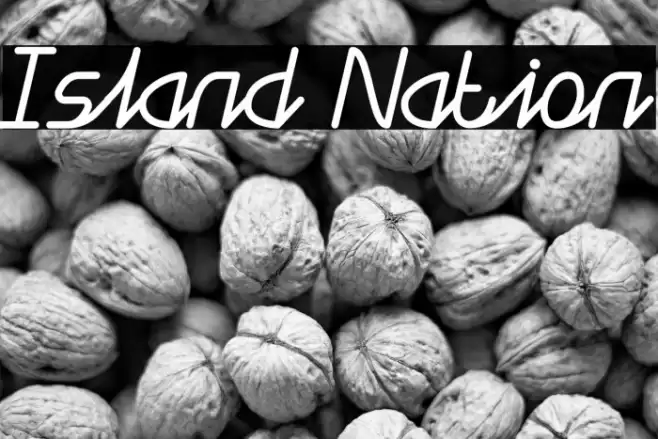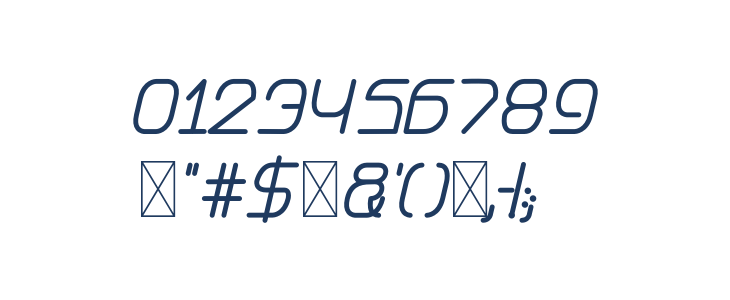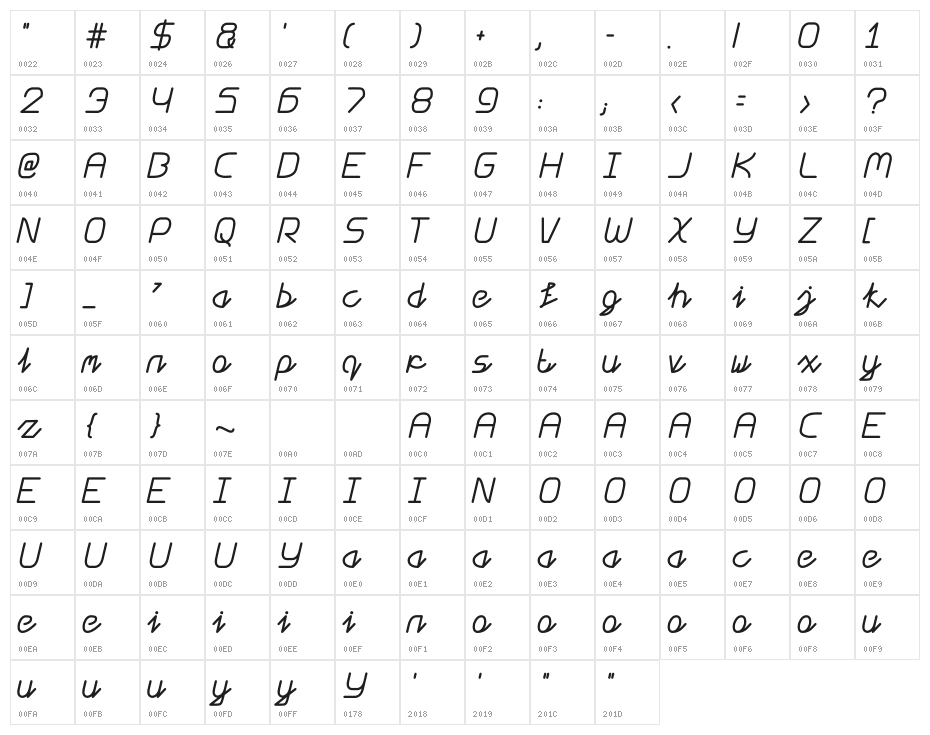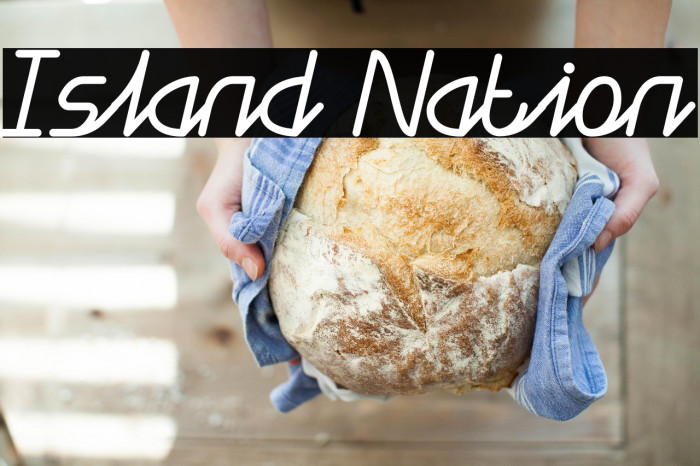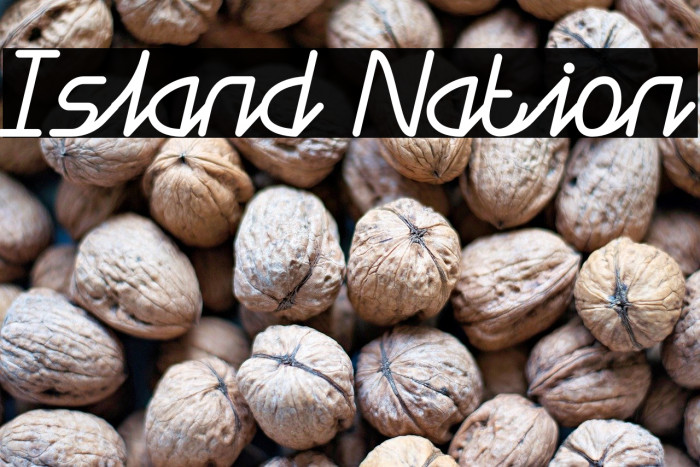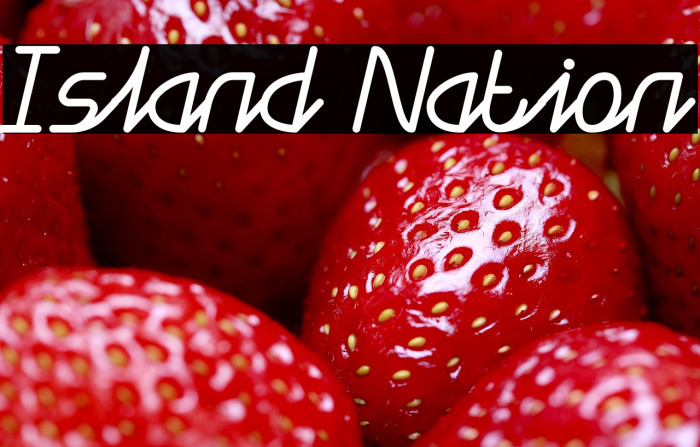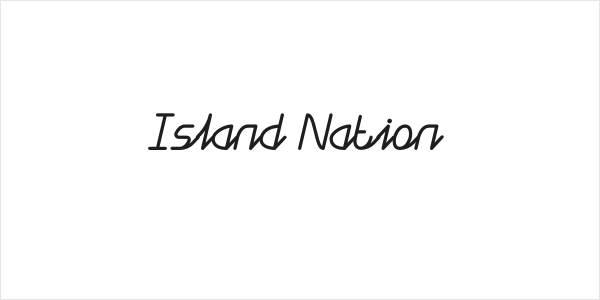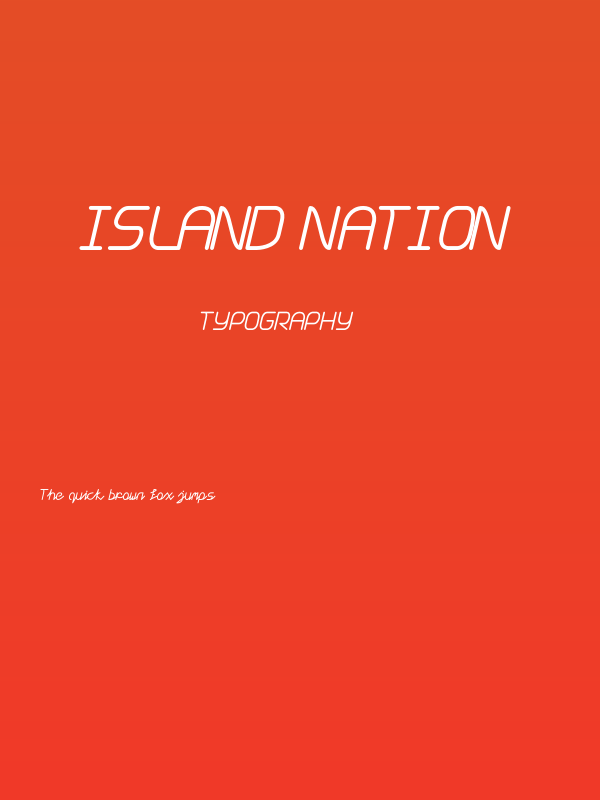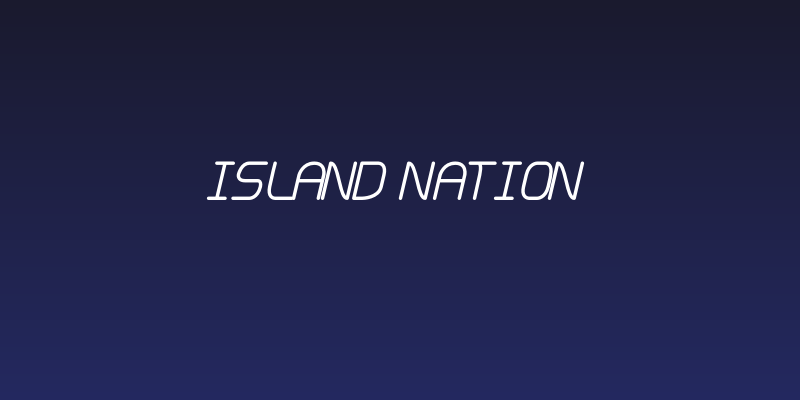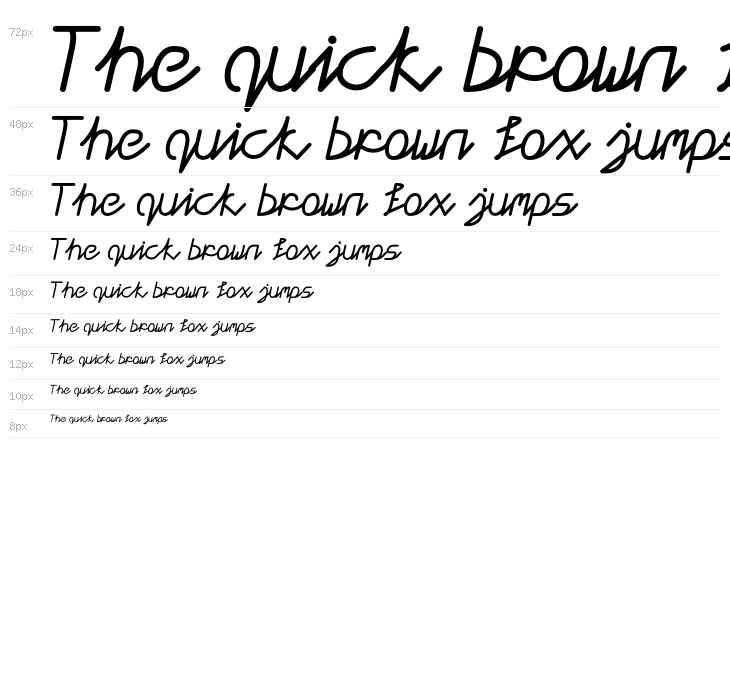
Island Nation Font
Island Nation Description
This font features a unique blend of cursive and geometric elements, creating a modern and dynamic appearance. The uppercase letters are characterized by smooth, flowing lines with a slight slant, giving them an elegant and sophisticated look. The lowercase letters maintain a consistent style, with rounded edges and a fluid connection between characters, enhancing readability and visual appeal. The numerals are designed with a similar approach, offering a cohesive look across all characters. Special characters are thoughtfully integrated, maintaining the font's overall aesthetic. This font is versatile, suitable for both digital and print media, and can be used to add a touch of modern elegance to any project.
A modern, cursive-inspired font with geometric elements, offering elegance and readability from Regular fonts.